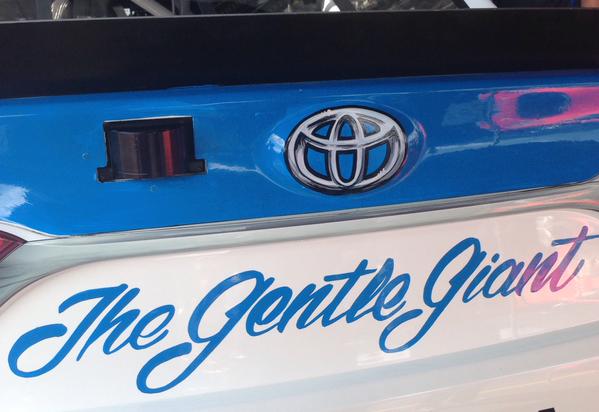
Any idea what this one is.
If you take a look at the 3 "e"s and the 2 "G"s they are all different, so I suppose this is handmade lettering - not a font.
"Brannboll Ny" by Måns Grebäck (free for personal use) comes a bit close: